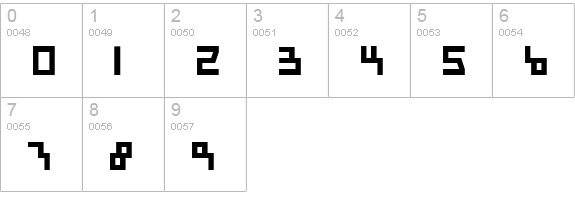
Beam Rider Bold is a strong, high-contrast variant in the Beam typeface family \xE2\x80\x94 well suited to headlines, attention-grabbing titles, and strong calls-to-action.
Introducing Beam Rider Bold font - a sleek and modern typeface that exudes confidence and style. With its bold and dynamic letterforms, Beam Rider Bold is perfect for making a statement in your designs. Whether you're creating posters, logos, or website headers, this font will capture attention and leave a lasting impression. And the best part? Beam Rider Bold is completely free to download at FontsMarket.com. So you can elevate your projects with this eye-catching font without breaking the bank. Don't miss out on the opportunity to add Beam Rider Bold to your font collection today!